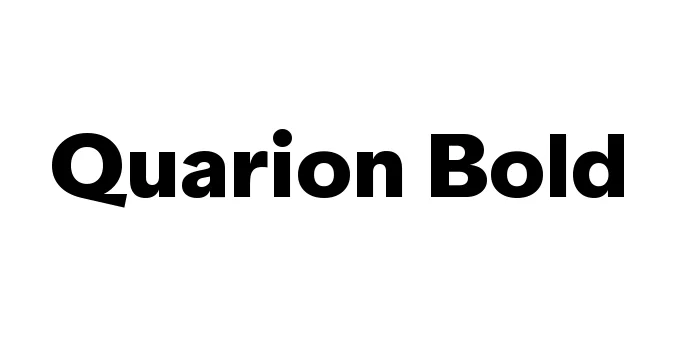
Quarion Bold
Designed by René Bieder
| Font Name | Quarion |
| Category | Geometric Sans Serif |
| Designer | René Bieder |
| Similar Fonts | Futura, Montserrat, Gotham, Avenir |
Quarion Bold is a sophisticated geometric sans-serif typeface designed by René Bieder. Inspired by the clarity and functionality of early 20th-century modernism, this font family incorporates contemporary refinements that make it versatile for today's digital landscape. Its structure is rooted in mathematical precision while maintaining a humanist warmth through subtle optical adjustments to ensure visual balance and professional appeal.
The Bold weight is particularly effective for high-impact communication, delivering a punchy and authoritative voice without sacrificing the clean aesthetic that defines the Quarion family. With its large x-height and open apertures, it ensures excellent legibility in both print and digital environments, making it a top choice for graphic designers working on branding, editorial layouts, and complex user interface projects.
Quarion Bold Best Uses
Creates a strong and authoritative visual hierarchy for titles.
Perfect for building modern, minimalist brand identities.
Optimized for readability in navigational elements and buttons.
Grabs attention effectively in posters and digital banners.